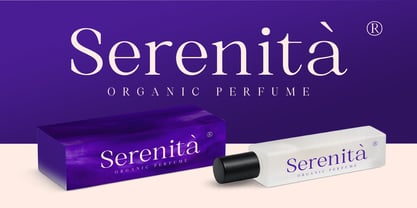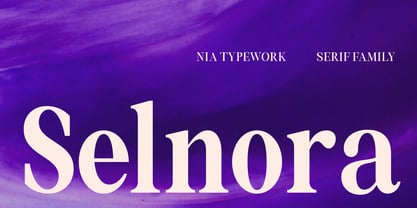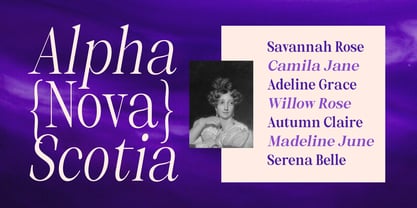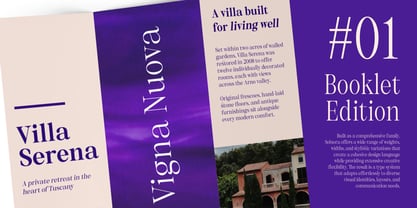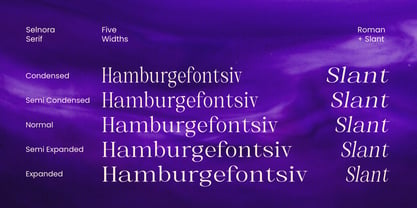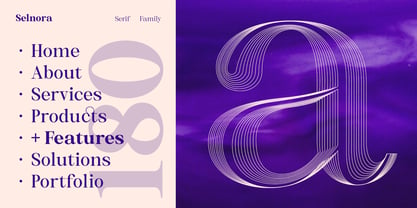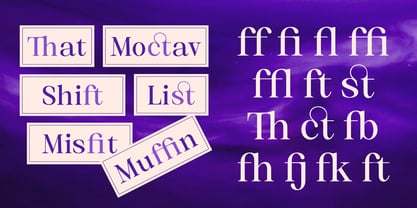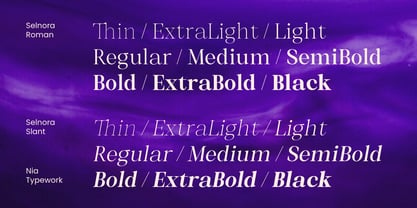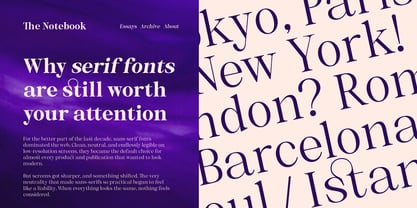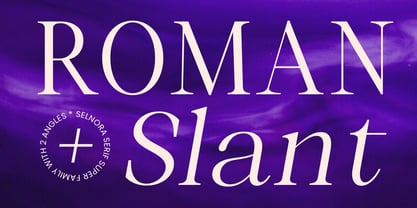
Selnora
Die Schriftfamilie Selnora wurde von Mauli Zari, Nia Octarina entworfen und von Nia Typework veröffentlicht. Selnora enthält 181 Stile und Familienpaketoptionen. Mehr über diese Familie
Selnora Serif is a refined contemporary serif that blends classical elegance with modern sophistication. Designed with graceful curves, balanced proportions, and distinctive high-contrast details, Selnora brings a sense of luxury and confidence to every composition. Its sculpted letterforms create a timeless aesthetic that feels equally at home in premium branding, editorial layouts, fashion campaigns, packaging, and elegant digital experiences.
The family is crafted to deliver both beauty and functionality, offering strong visual presence in large headlines while maintaining clarity and refinement in display settings. Inspired by the heritage of traditional serif typography and reinterpreted through a contemporary lens, Selnora captures an atmosphere of sophistication, femininity, and prestige. Whether used for luxury brands, boutique businesses, magazines, cosmetics, or high-end invitations, Selnora elevates typography with a memorable and distinctive character.